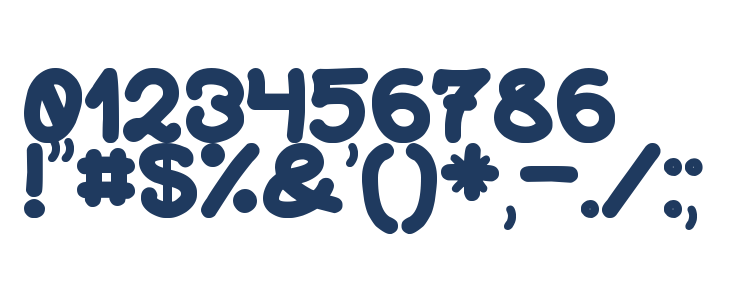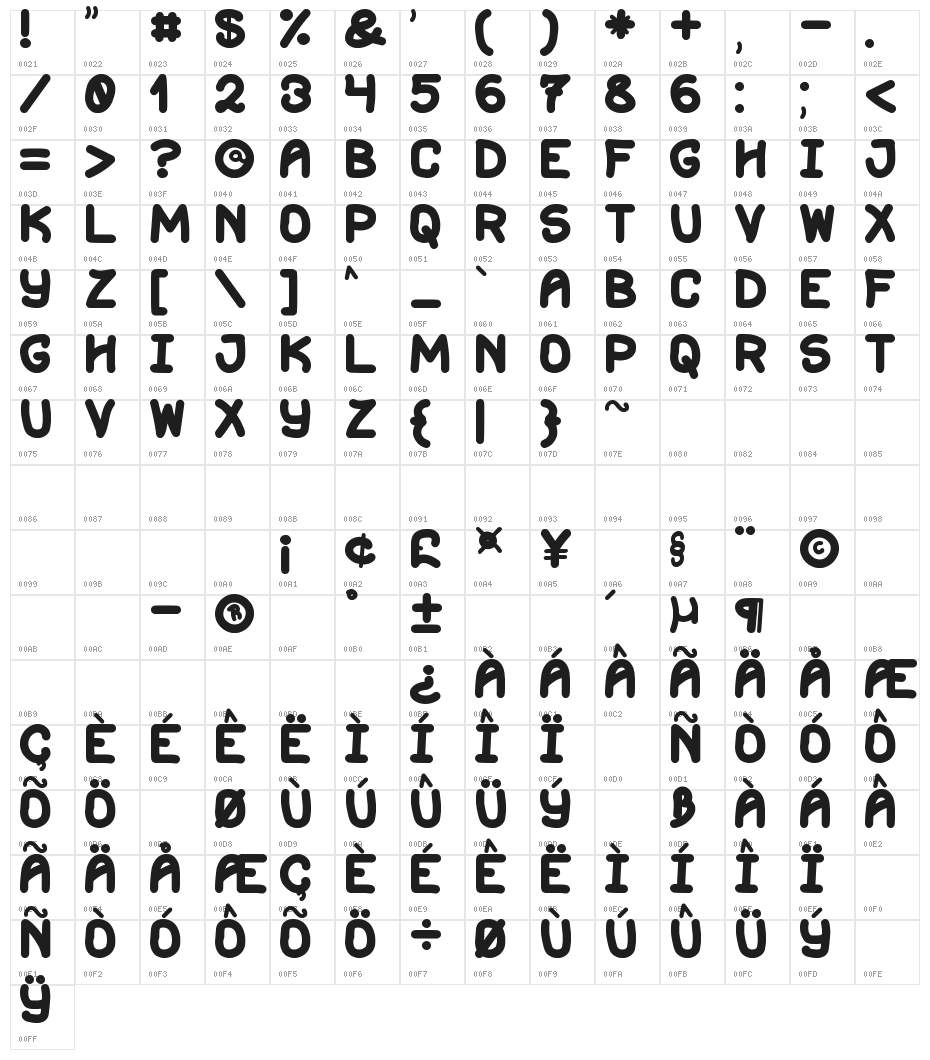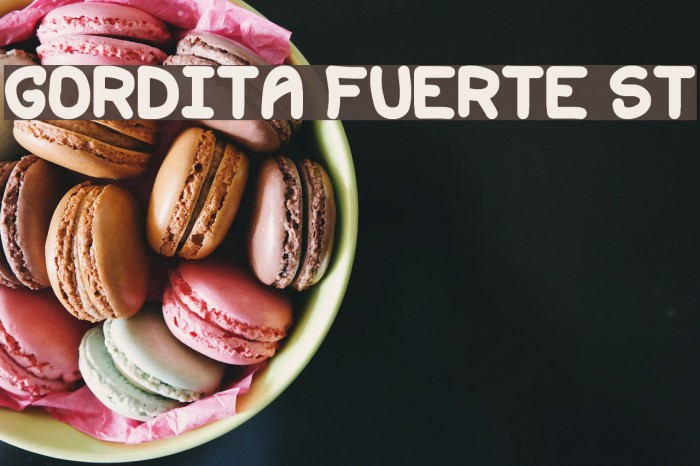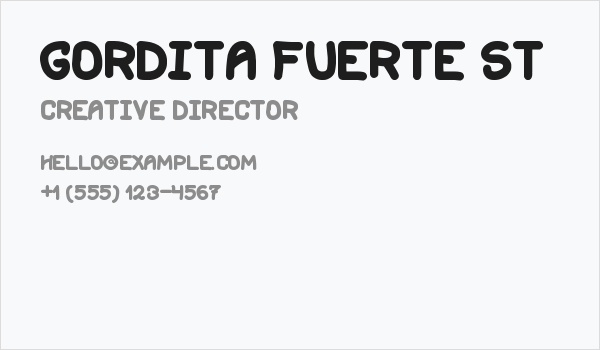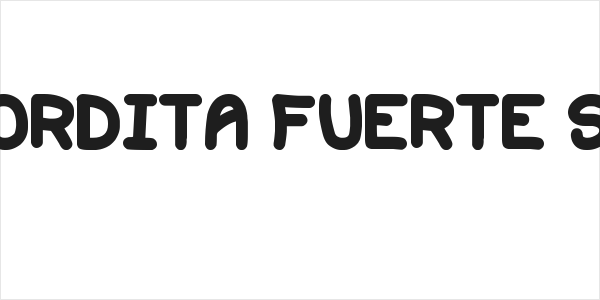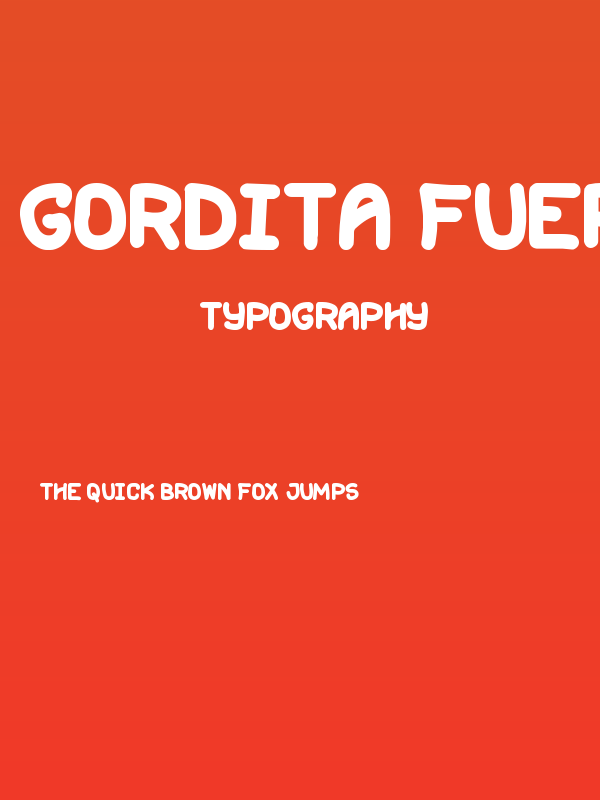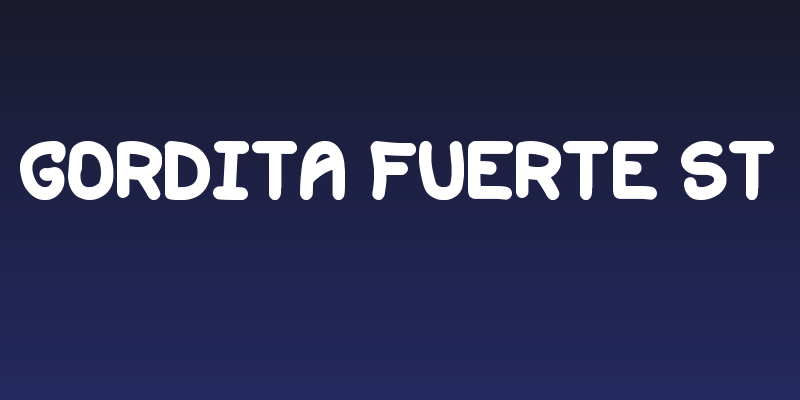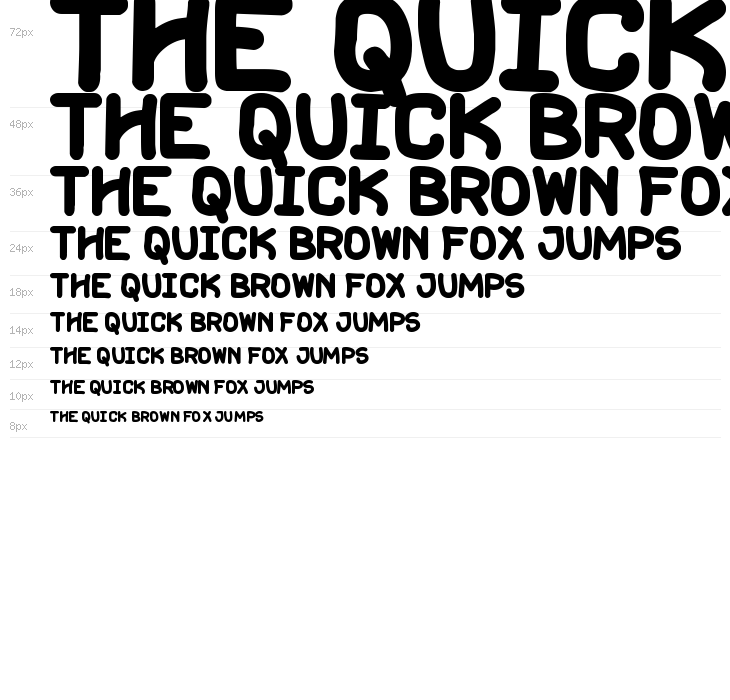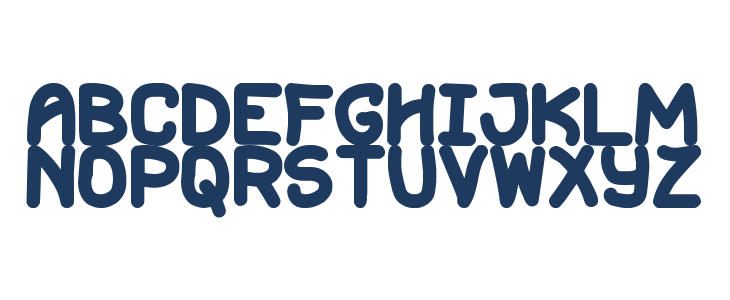
Gordita Fuerte St Font
Gordita Fuerte St Description
This font features a bold and playful design, characterized by its rounded and thick letterforms. The strokes are consistent in width, giving it a uniform appearance. The characters have a slightly informal and friendly vibe, making it suitable for casual and fun projects. The uppercase and lowercase letters maintain a consistent style, with rounded edges and a slight bounce in their baseline, adding to the playful nature. The numerals and special characters follow the same design principles, ensuring a cohesive look across all glyphs.
Overall StylePlayful, Casual
Proposed ProjectsIdeal for children's books, playful branding, casual invitations, and fun posters.